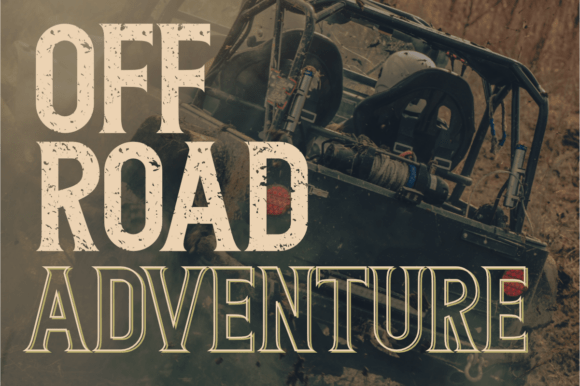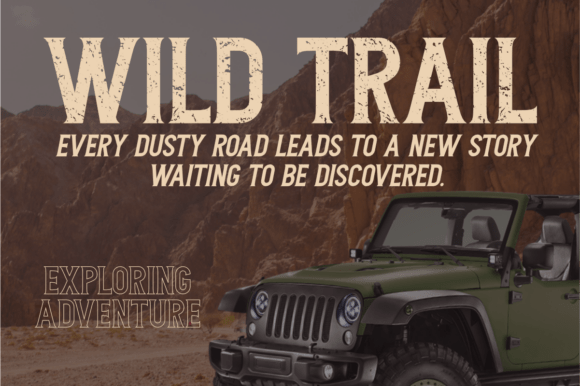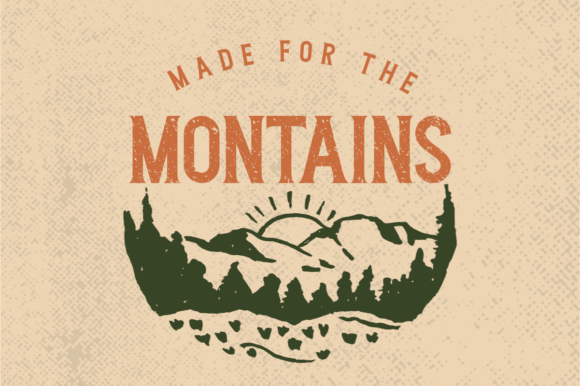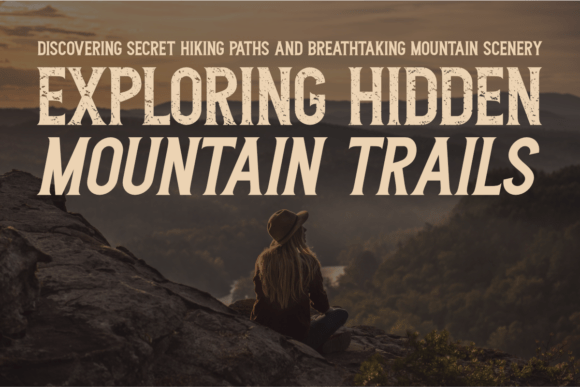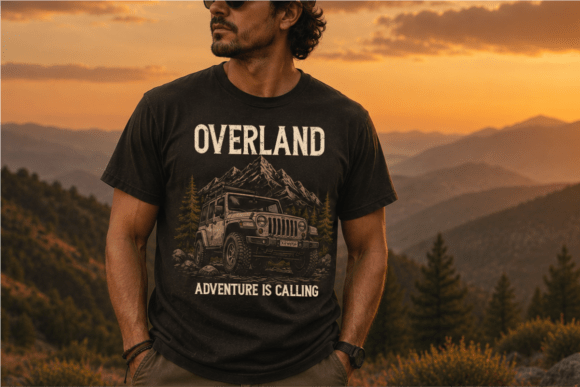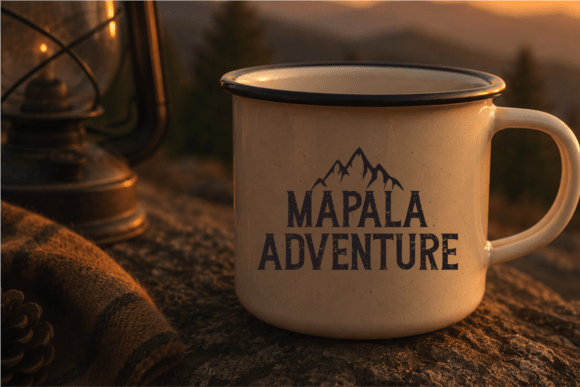
Unleash Your Creativity with Exploring Adventure Font
Are you on the hunt for a font that embodies the spirit of adventure and exploration? Look no further than the Exploring Adventure font family. This versatile vintage display font is designed to bring a bold, rugged, and timeless character to your creative projects. With its strong letterforms, distressed details, and classic vintage aesthetic, Exploring Adventure delivers an authentic handcrafted feel that works beautifully for both modern and nostalgic designs.
What Makes Exploring Adventure Font So Special?
Exploring Adventure is not just a font, it’s a comprehensive font family that offers four distinct styles: Regular, Texture, Outline, and Italic. This range of styles makes it perfect for a wide variety of applications, from logos and posters to apparel designs, branding, packaging, and social media graphics. Whether you’re working on a camping theme, outdoor project, adventure quotes, travel content, badges, labels, or retro-inspired layouts, Exploring Adventure has got you covered.
Key Features of Exploring Adventure Font
- Versatile Design: The font features a bold, rugged, and timeless design that works well for both modern and nostalgic projects.
- Four Distinct Styles: The font family includes Regular, Texture, Outline, and Italic styles, offering flexibility for various design needs.
- Distressed Details: The font’s distressed details give it a handcrafted, authentic feel that’s perfect for creating unique designs.
- Vintage Aesthetic: The classic vintage aesthetic of Exploring Adventure makes it ideal for projects that require a retro or nostalgic touch.
Exploring Adventure font is a perfect fit for designers and crafters who want to add a touch of adventure and exploration to their projects. Whether you’re creating logos, branding materials, or social media graphics, this font family offers the versatility and style you need to make your designs stand out.
Use Cases for Exploring Adventure Font
- Logos and Branding: Create bold and memorable logos that capture the essence of your brand.
- Posters and Flyers: Design eye-catching posters and flyers that grab attention and convey your message.
- Apparel Designs: Add a touch of adventure to your apparel designs, from t-shirts to hoodies.
- Packaging: Create unique and memorable packaging that stands out on store shelves.
- Social Media Graphics: Elevate your social media graphics with a font that’s both bold and stylish.
- Camping Themes and Outdoor Projects: Perfect for designing materials related to camping, hiking, and outdoor adventures.
- Adventure Quotes and Travel Content: Add a touch of adventure to your quotes and travel content.
- Badges and Labels: Create custom badges and labels with a vintage touch.
- Retro-Inspired Layouts: Bring a nostalgic feel to your designs with Exploring Adventure’s vintage aesthetic.
Why Choose Exploring Adventure Font?
With so many fonts available, why choose Exploring Adventure? The answer lies in its unique combination of bold, rugged, and timeless design elements. This font family offers a level of versatility and style that’s hard to find elsewhere. Whether you’re a designer, crafter, or DIY enthusiast, Exploring Adventure font is a valuable addition to your toolkit.
| Font Name | Exploring Adventure Font |
| Author | Eystore |
In conclusion, Exploring Adventure font is a versatile and stylish font family that’s perfect for designers, crafters, and DIY enthusiasts. With its bold, rugged, and timeless design, distressed details, and classic vintage aesthetic, this font family delivers an authentic handcrafted feel that’s perfect for a wide range of creative projects. So why wait? Unleash your creativity with Exploring Adventure font and take your designs to the next level.